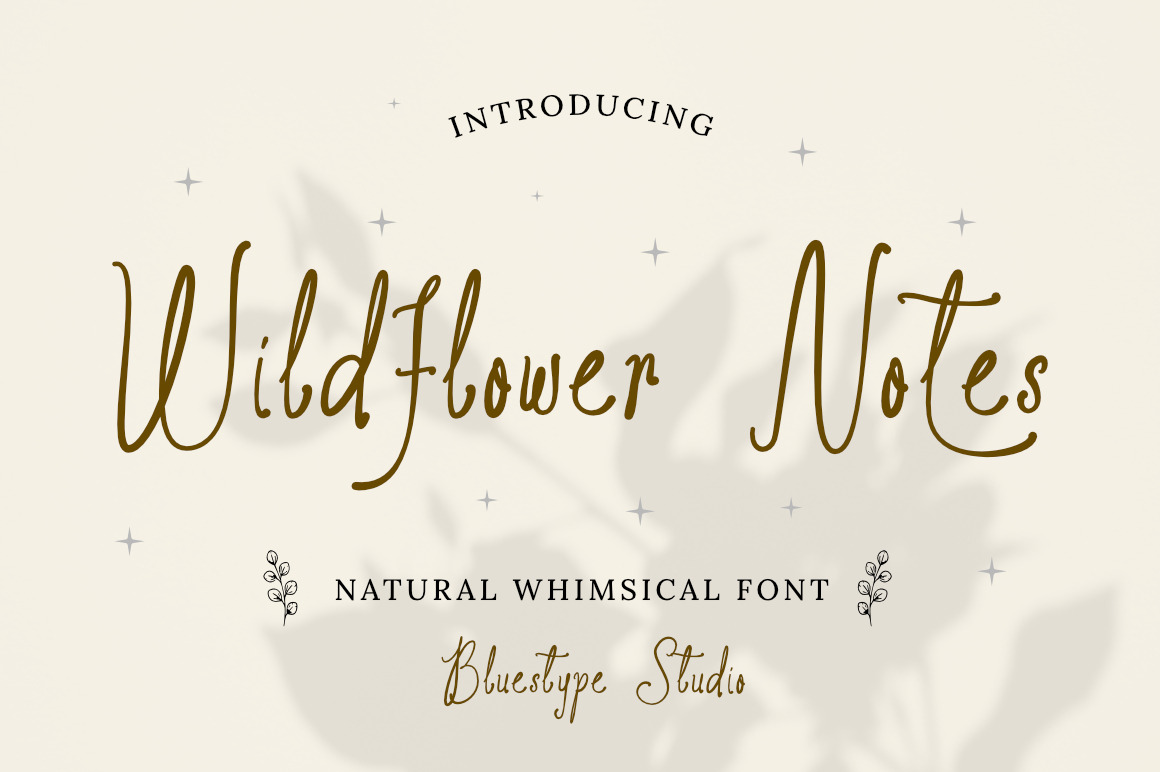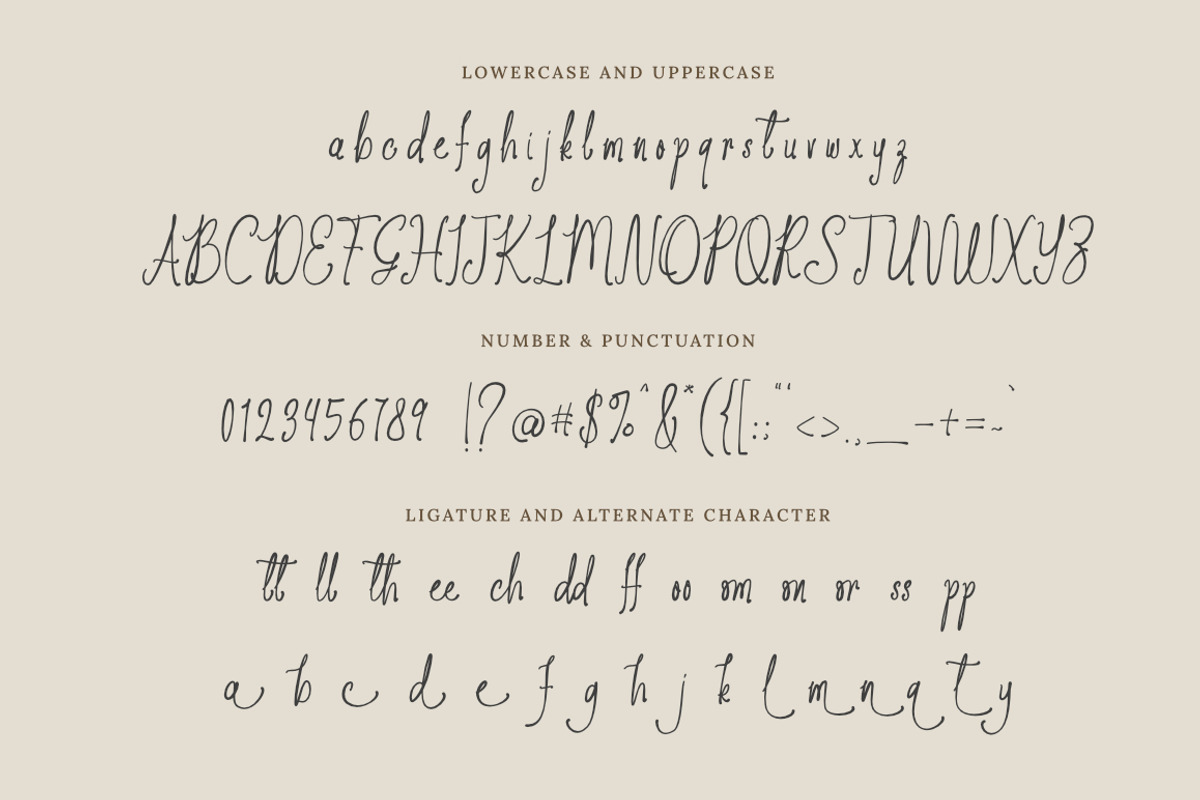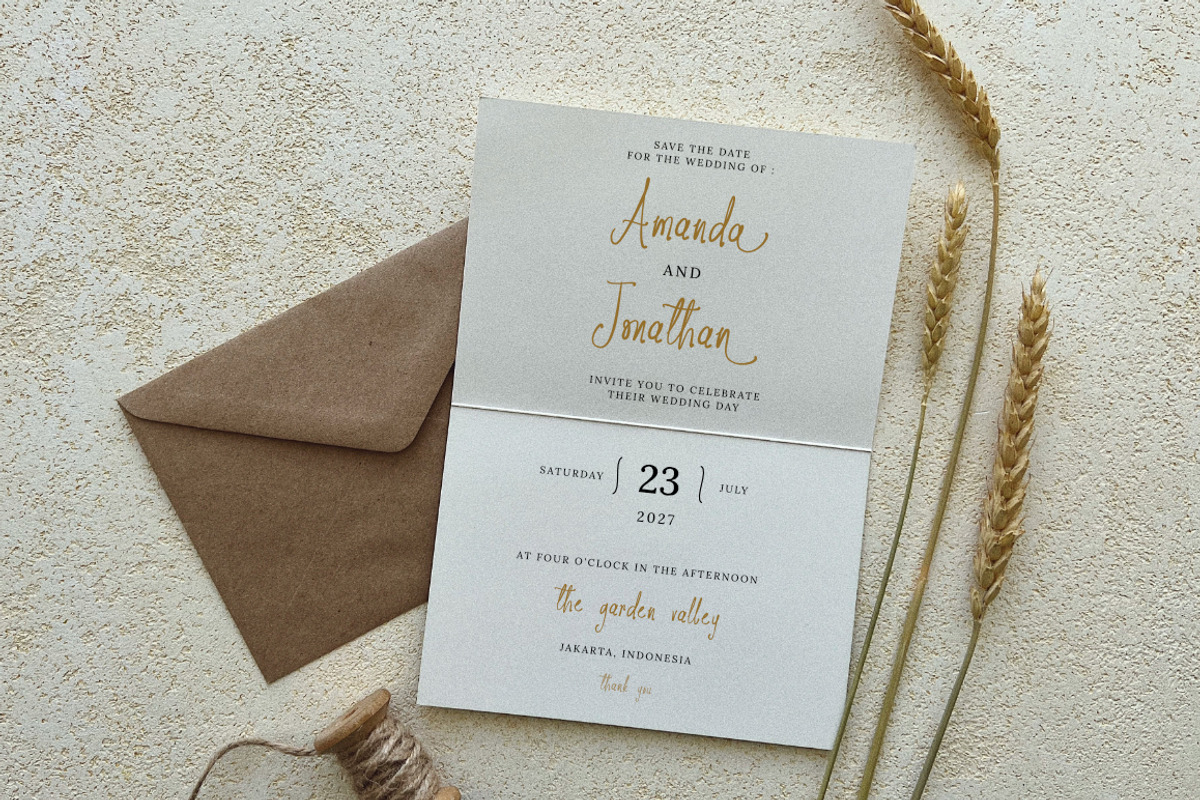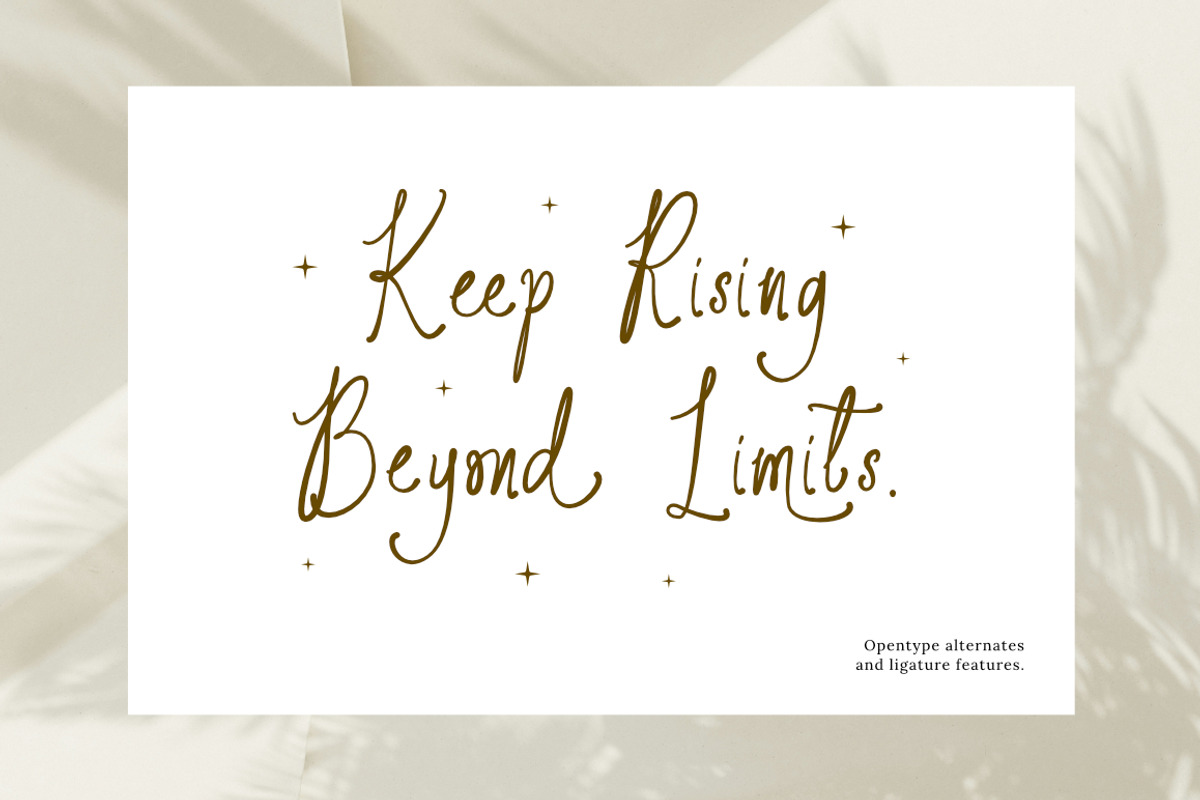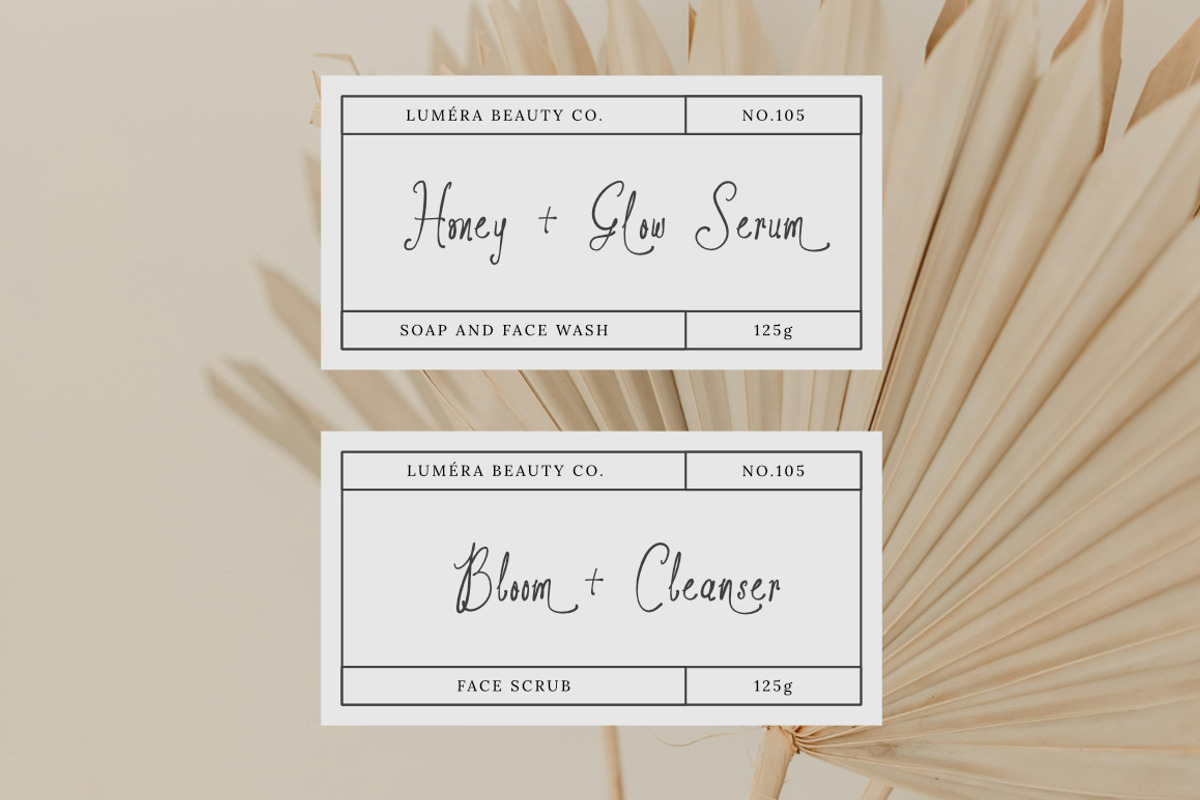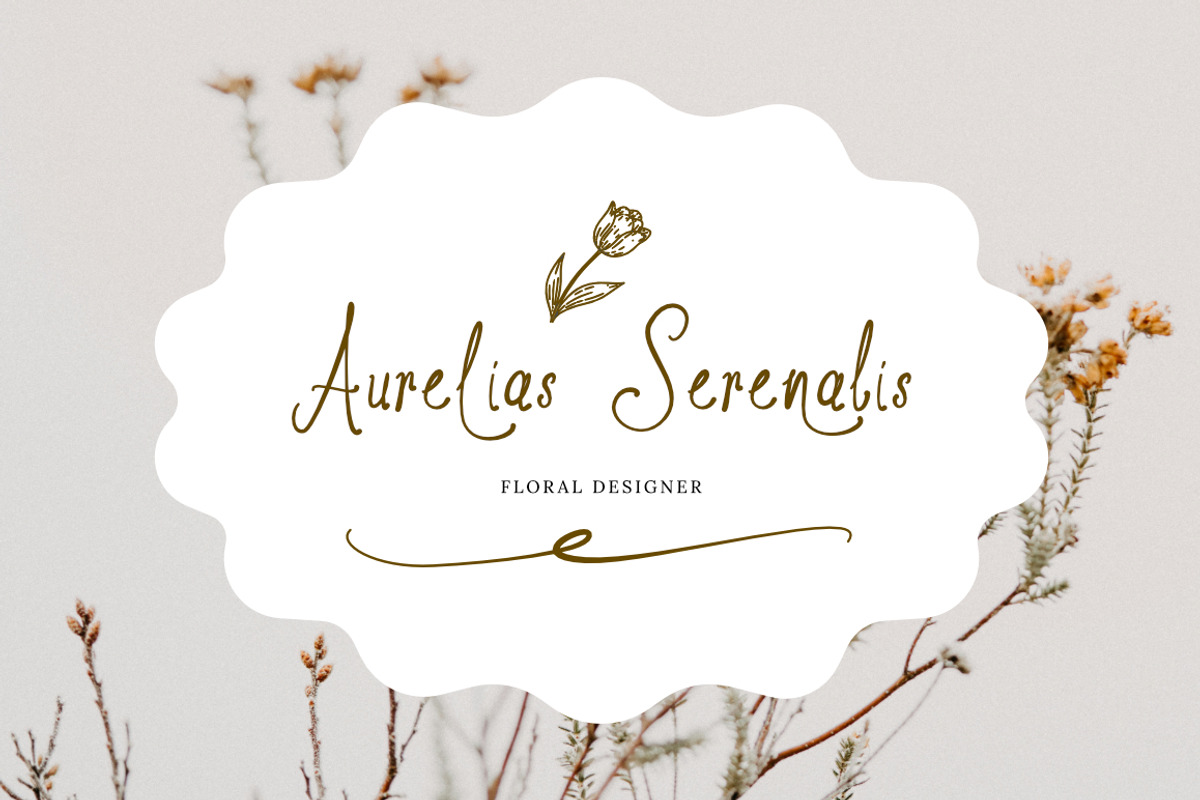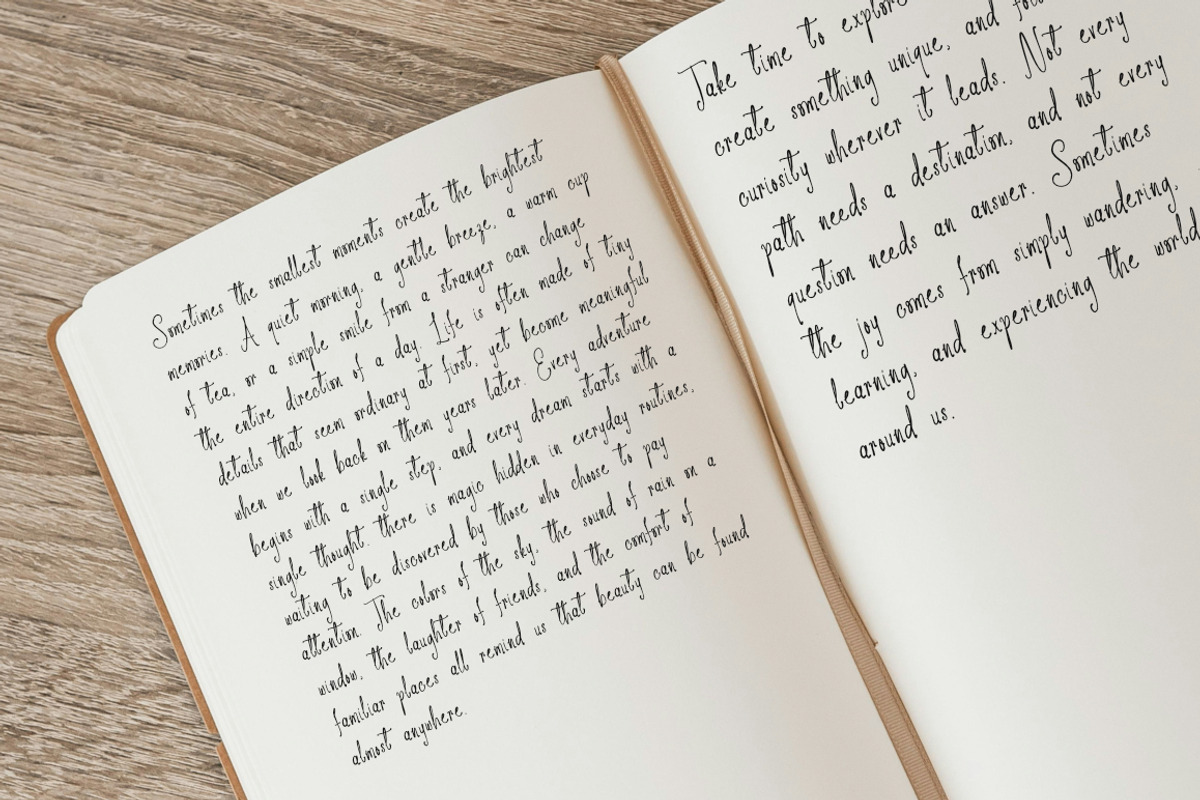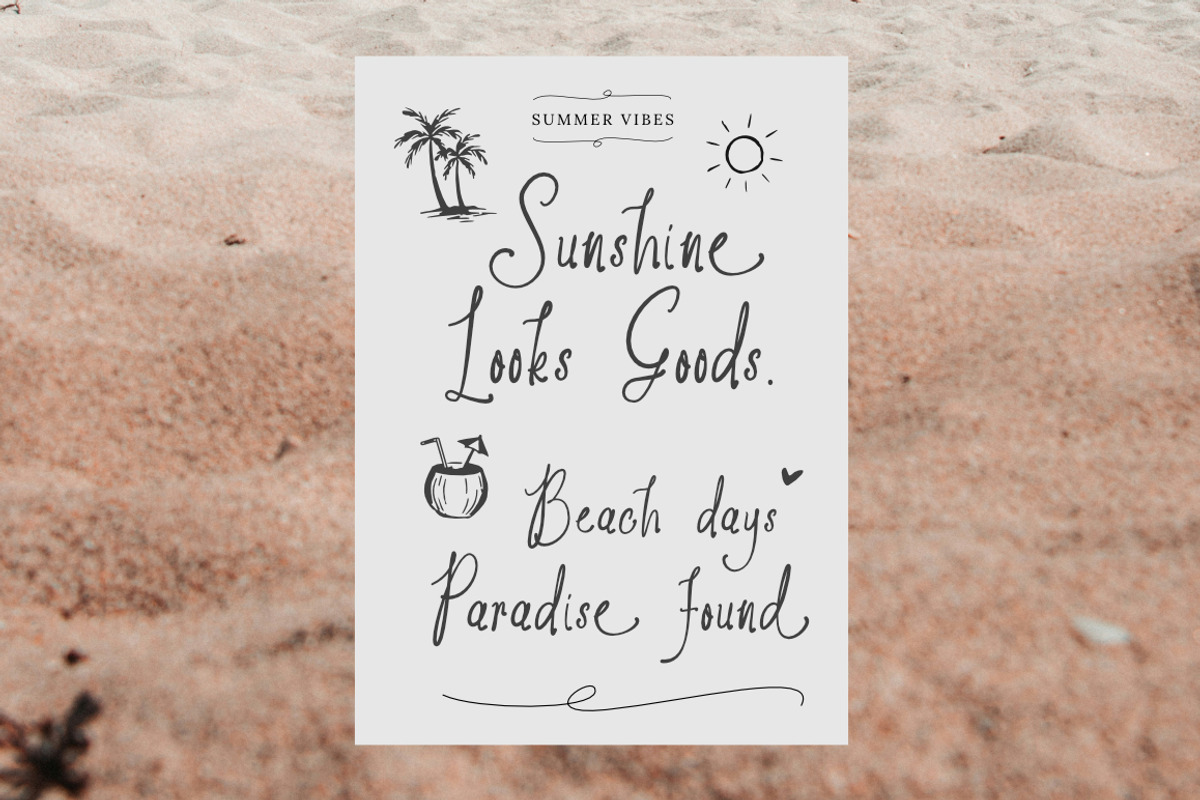
Wildflower Notes - Whimsical Fonts
Wildflower Notes is a charming handwritten natural whimsical font designed to bring warmth, creativity, and authenticity to every project. Inspired by carefree handwritten notes and the beauty of wildflowers, this font features flowing strokes, organic letterforms, and a playful personality that feels both elegant and approachable.
Perfect for branding, logos, wedding invitations, greeting cards, social media graphics, packaging, quotes, stationery, scrapbook designs, and creative craft projects, Wildflower Notes adds a personal and heartfelt touch to your typography. Its natural handwritten style creates a genuine handcrafted feel while maintaining excellent readability.
Ligature
Number & Punctuation
Support Multilingual Languange